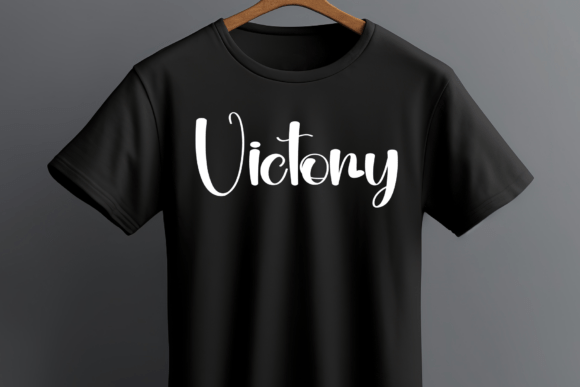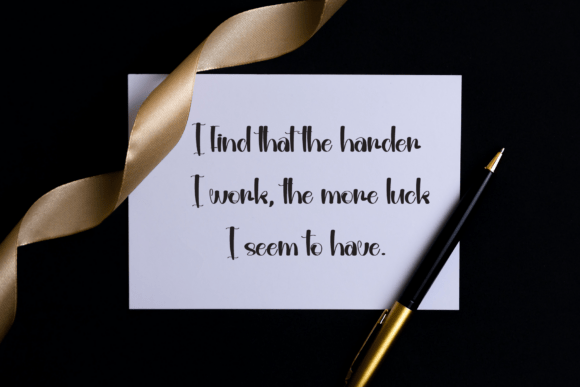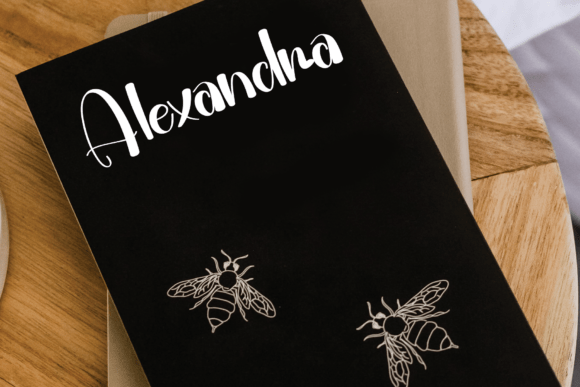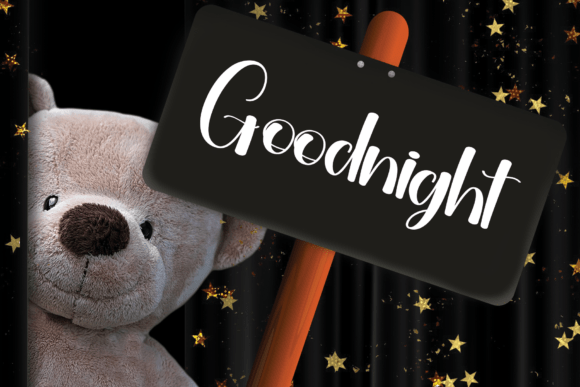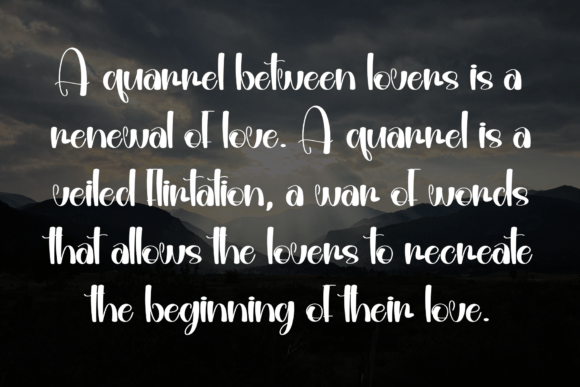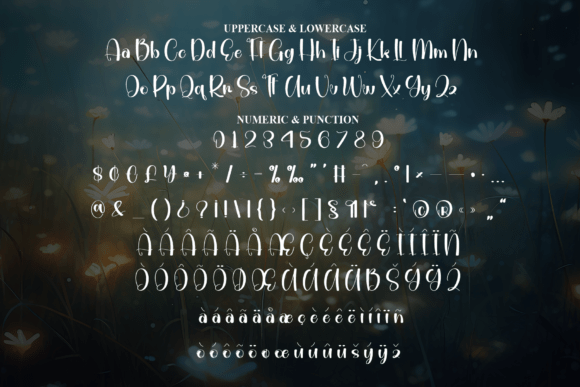
Introduction to Magic Wednesday Font
Remember that moment when you stumbled upon the perfect font for your creative project? The one that instantly elevates your design and captures the essence of your idea? For many designers, that moment is often sparked by discovering a unique and captivating font like the Magic Wednesday Font.
This enchanting script font is a treasure trove of elegance and playfulness, boasting tall uppercase forms and flowing lowercase curves that will transport your designs to a whimsical world. Whether you’re crafting invitations, branding, blog headers, or seasonal designs, the Magic Wednesday Font is a perfect choice for those seeking a magical and feminine aesthetic.
As a valuable design resource, the Magic Wednesday Font offers a high-quality solution for designers seeking to add a touch of sophistication and whimsy to their work. With its versatility and charm, it’s no wonder this font has become a favorite among creatives. In this article, we’ll delve into the world of the Magic Wednesday Font and explore why it’s a must-have for any designer’s toolkit.
Key Features of Magic Wednesday Font
- Unique, hand-drawn design perfect for creative projects and adding a personal touch.
- Perfect for designers, artists, and writers looking for a distinctive, high-quality font to elevate their work.
- Supports a wide range of languages, making it a versatile design element for global creative projects.
Honest Review: Magic Wednesday Font
- Unique and quirky design aesthetic that adds a touch of whimsy to any project.
- Clear and readable typography, making it perfect for body text or titles.
- Transparent background, allowing for easy layering and compositing.
- High-quality design that looks great on both screen and print.
- Limited character set, which may not be ideal for extended text projects.
- No bold or italic weights, which may limit its versatility.
Overall, I’m impressed with the Magic Wednesday Font’s unique design and high-quality execution. While it may have some limitations, it’s a great addition to any designer’s toolkit, especially for creative projects where a touch of whimsy is needed.
Tips for Getting the Most Out of Magic Wednesday Font
For the best results, use the Magic Wednesday Font in conjunction with other design elements, such as images and graphics. Experiment with different font sizes and colors to create a unique and eye-catching design.
Common Use Cases for Magic Wednesday Font
The Magic Wednesday Font is ideal for creative projects, such as blog posts, social media graphics, and presentations. Its high-quality design and transparent background make it perfect for adding a professional touch to your work.